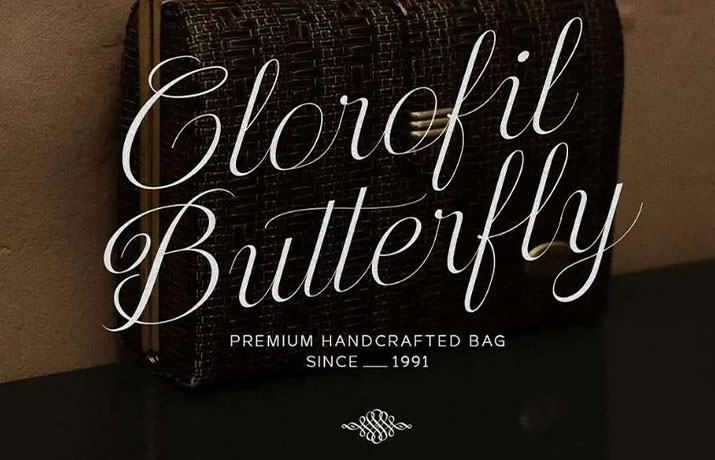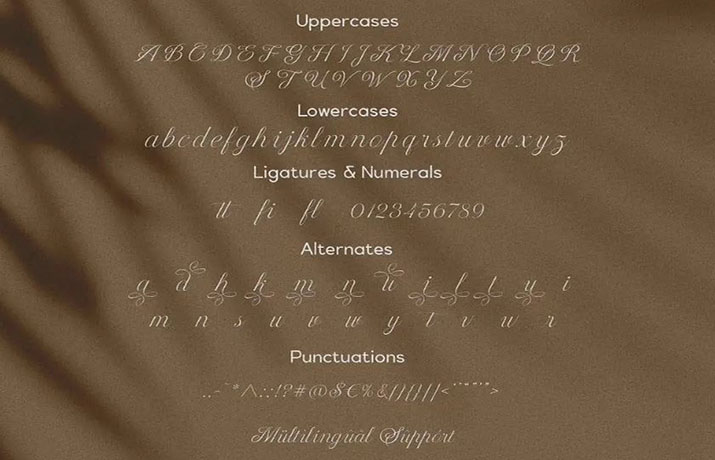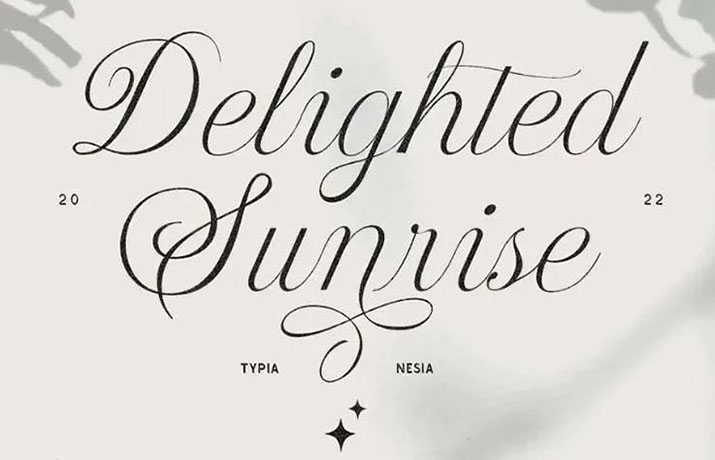
Delighted Sunrise Font is an elegant script calligraphy typeface that comes with flowing lines and graceful curves. It was designed by Typia Nesia & Hizkia and published by Typia Nesia.
Its vintage and elegant look makes it good for various purposes such as wedding invitations, branding materials, birthday cards, branding, social media graphics, and even personal letters.
Its structure has been created in a great way in which the designer adds more curves and solid padding. All textures are done with a brush so it doesn’t retain proper baselines.
Delighted Sunrise typeface comes in a single style along with Open Type features. This font contains 221 unique glyphs and 3 lighters. Moreover, it also supports 67 multilingual languages.
Delighted Sunrise Font (Details)
| Font Name: | Delighted Sunrise Font Family |
| Style: | Script, Calligraphy, Vintage |
| Font Designer: | Typia Nesia & Hizkia |
- This contemporary font is ideal for a number of uses. It is perfect for YouTube thumbnails, magazines, labels, headers, ads, birthday cards, social media posters, invitation cards, wedding cards, royal branding, wedding design, blogging, social media, restaurant branding, headers, signs, flyers, brouchurs, Instagram quotes, and other creations.